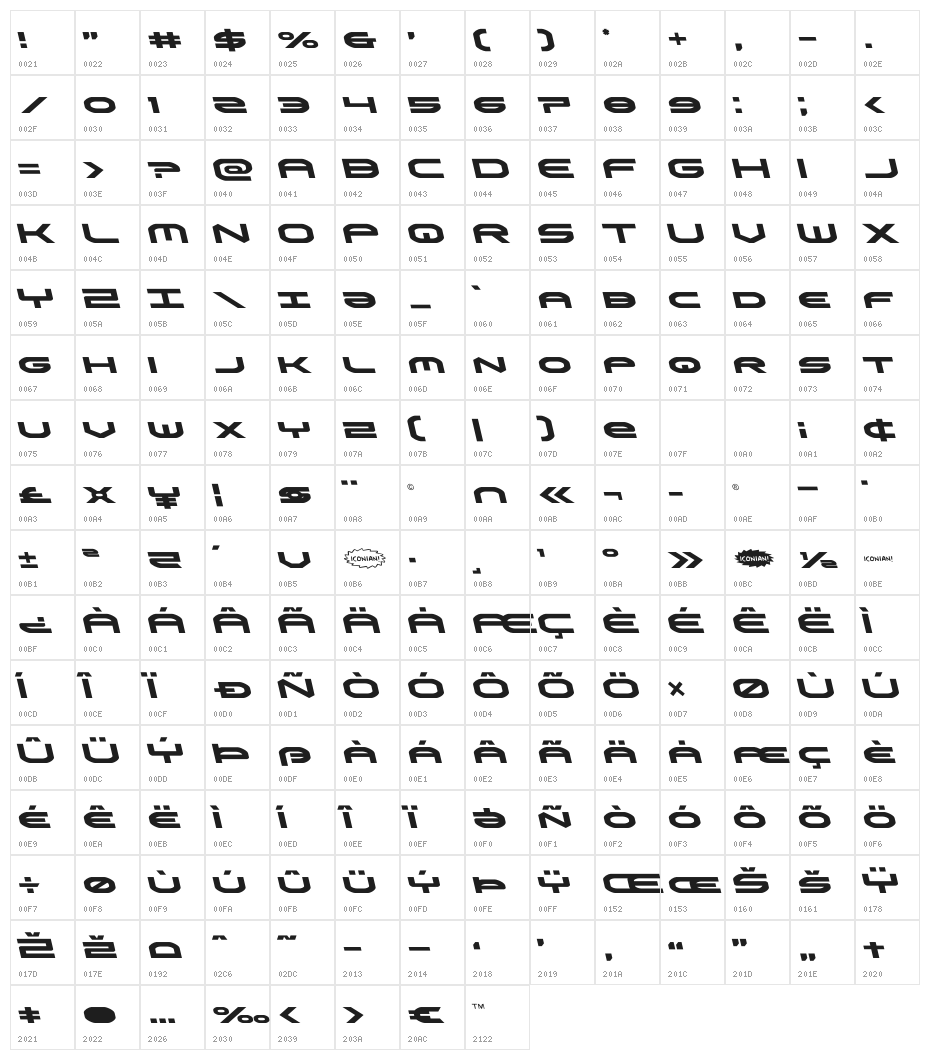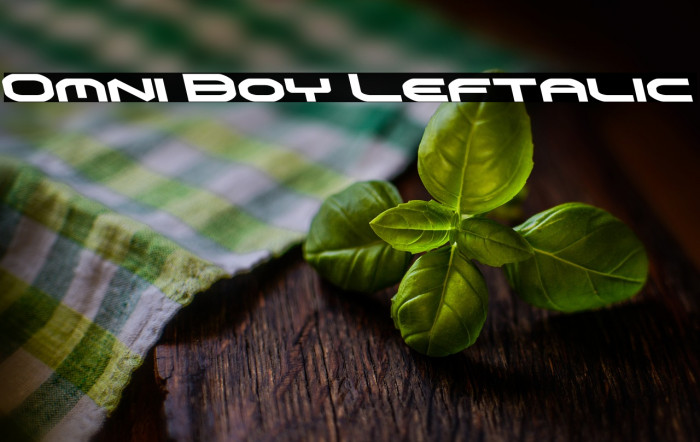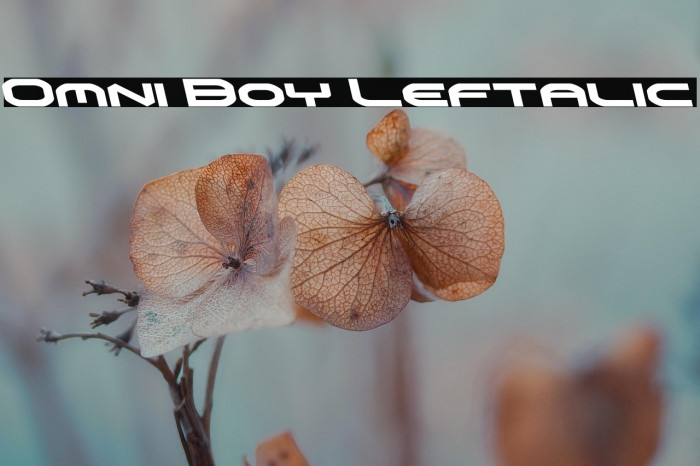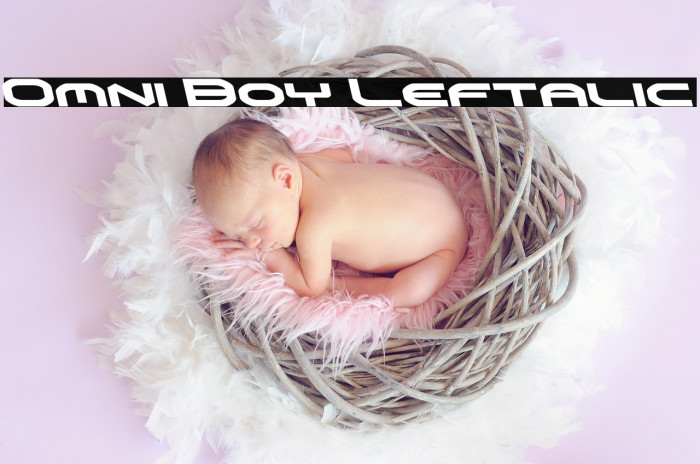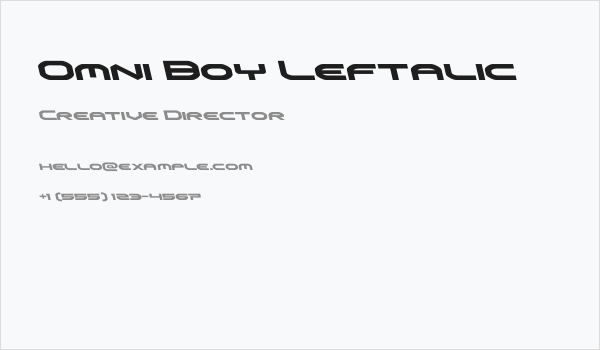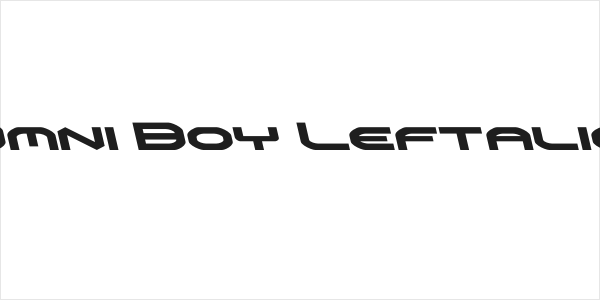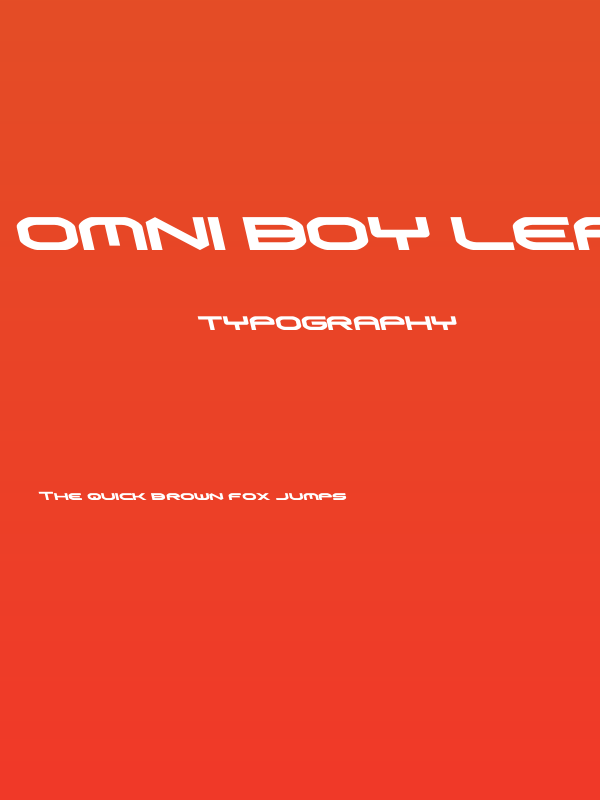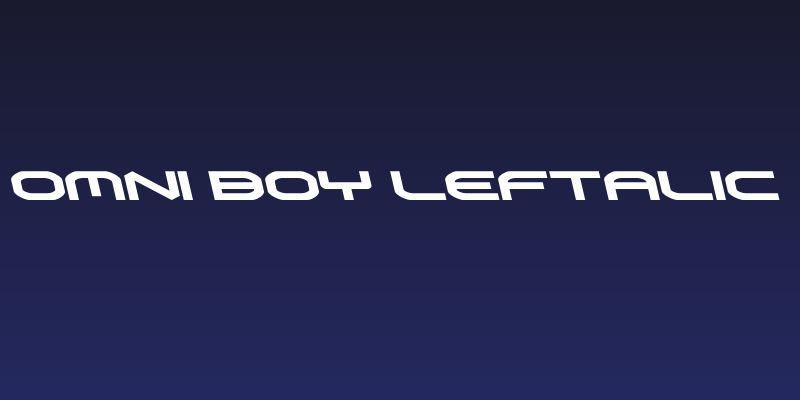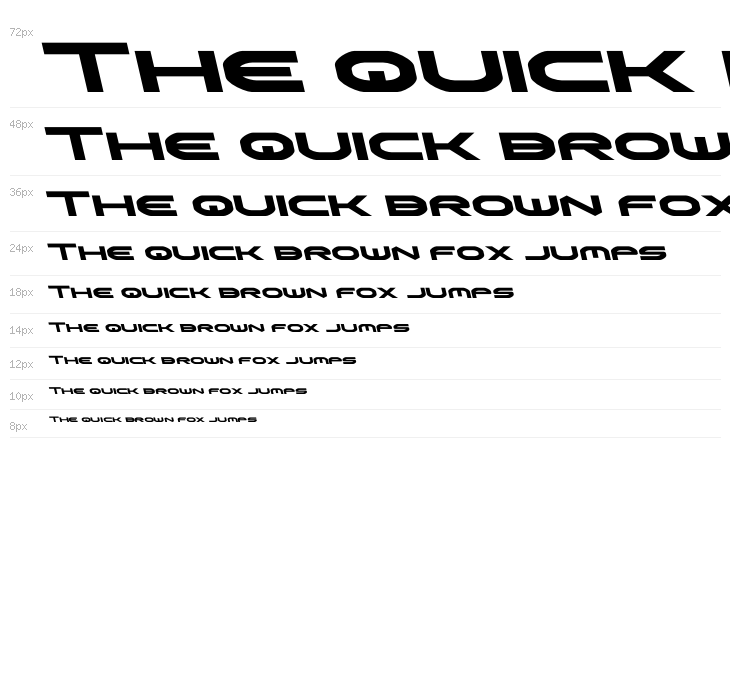
Omni Boy Leftalic Font
Omni Boy Leftalic Description
This font exhibits a futuristic and dynamic style, characterized by its angular and geometric letterforms. The uppercase letters are bold and wide, with a distinct slant that gives a sense of movement and speed. The lowercase letters maintain this angular design, creating a cohesive look across the typeface. Numbers are similarly styled, with a bold presence that ensures readability. Special characters are integrated seamlessly, maintaining the overall aesthetic. The font's unique style makes it ideal for projects that require a modern and edgy appearance.